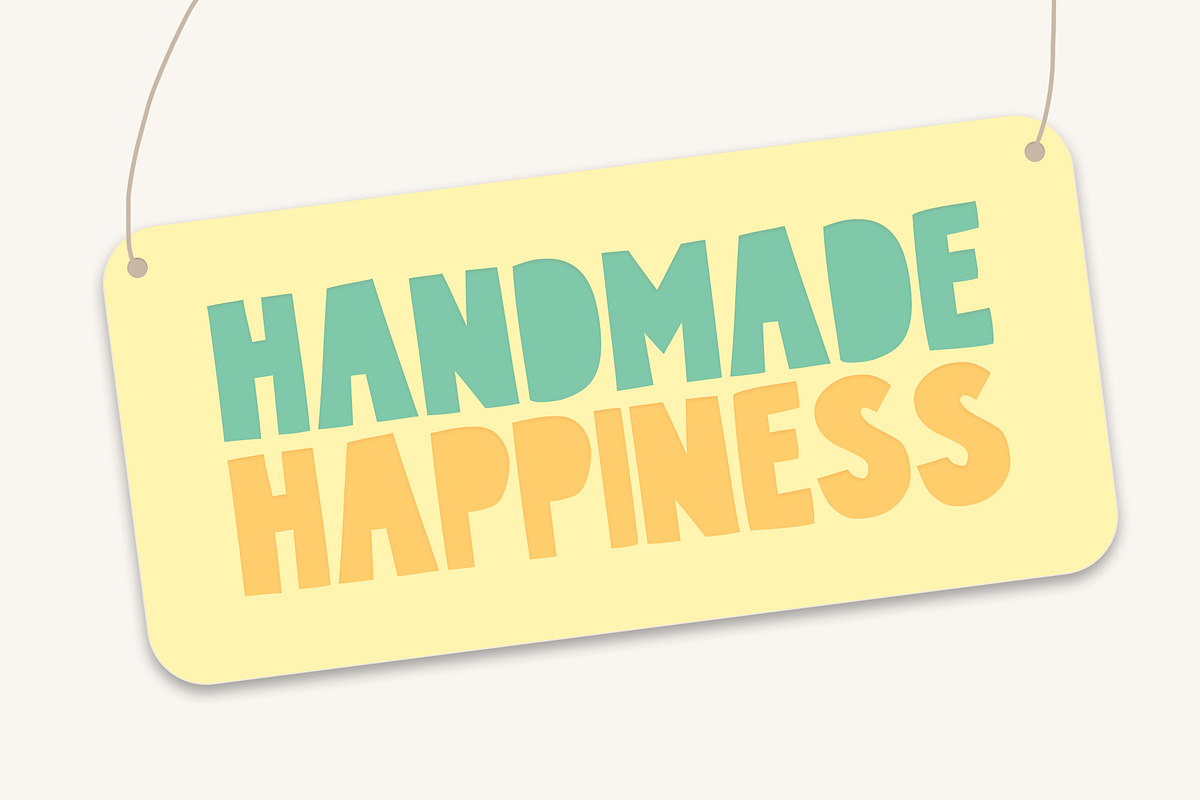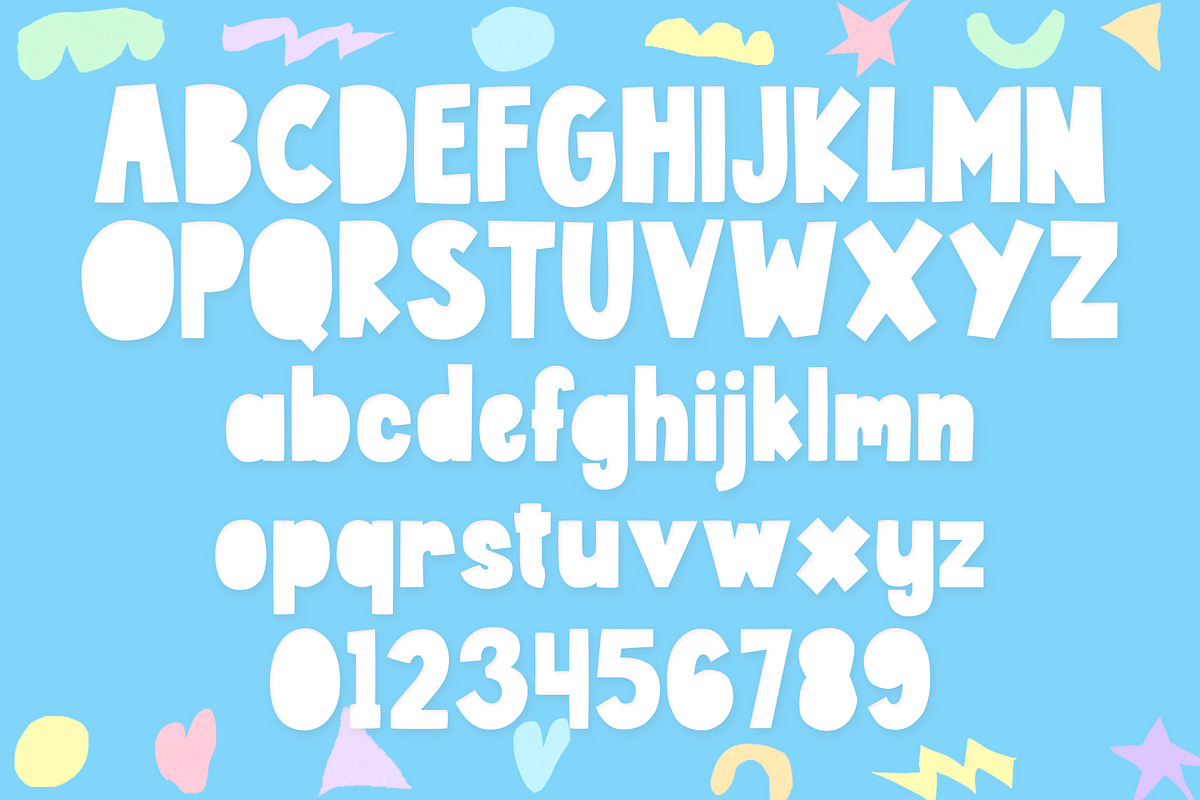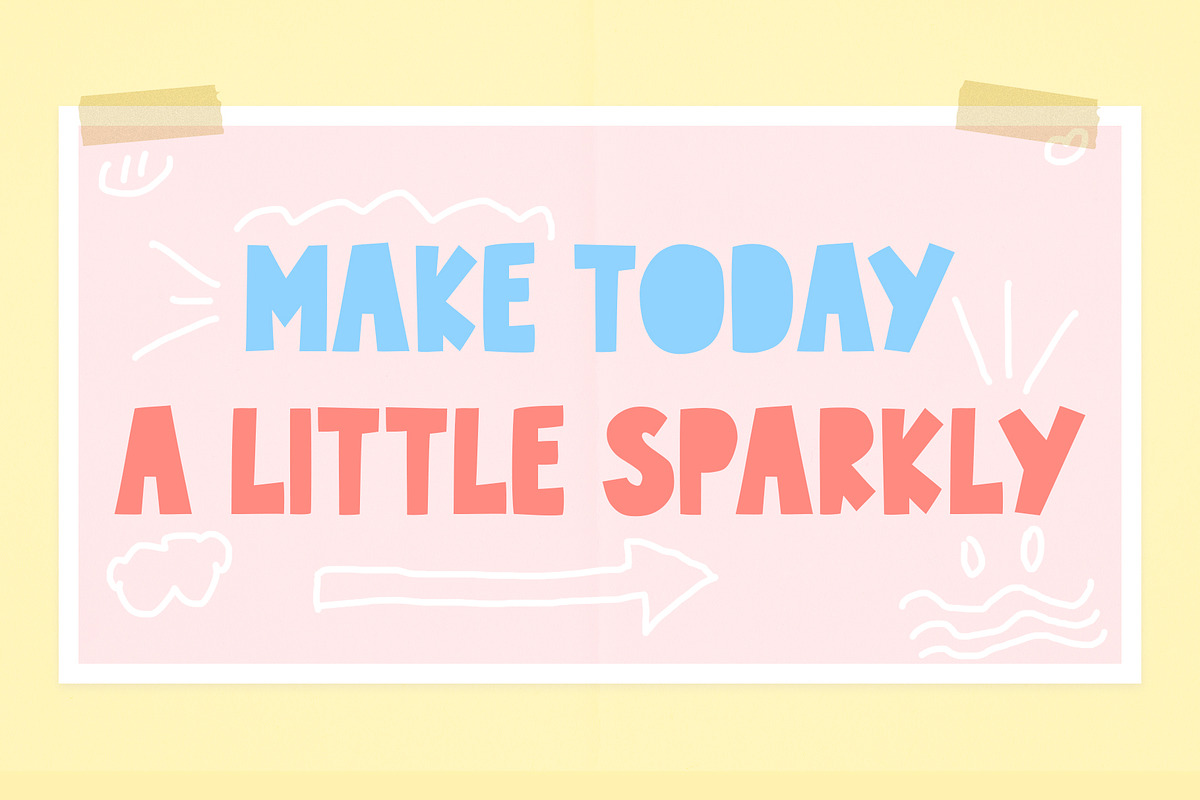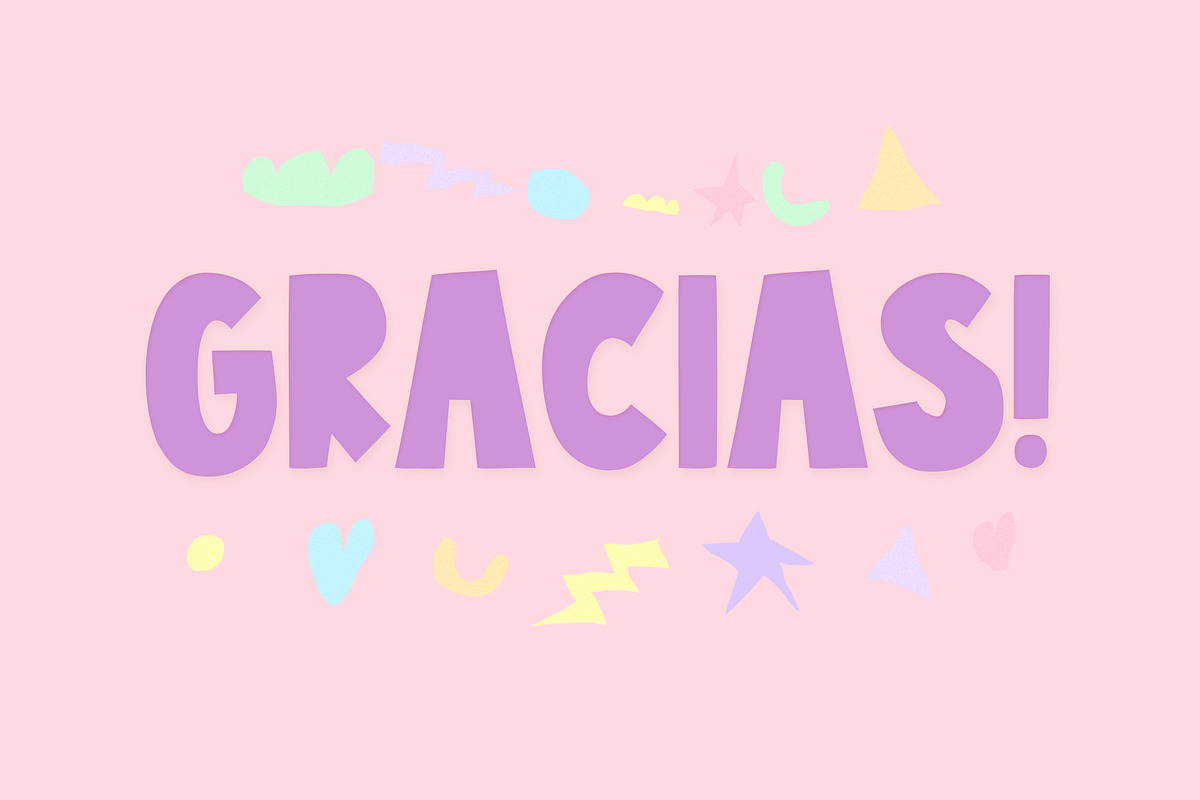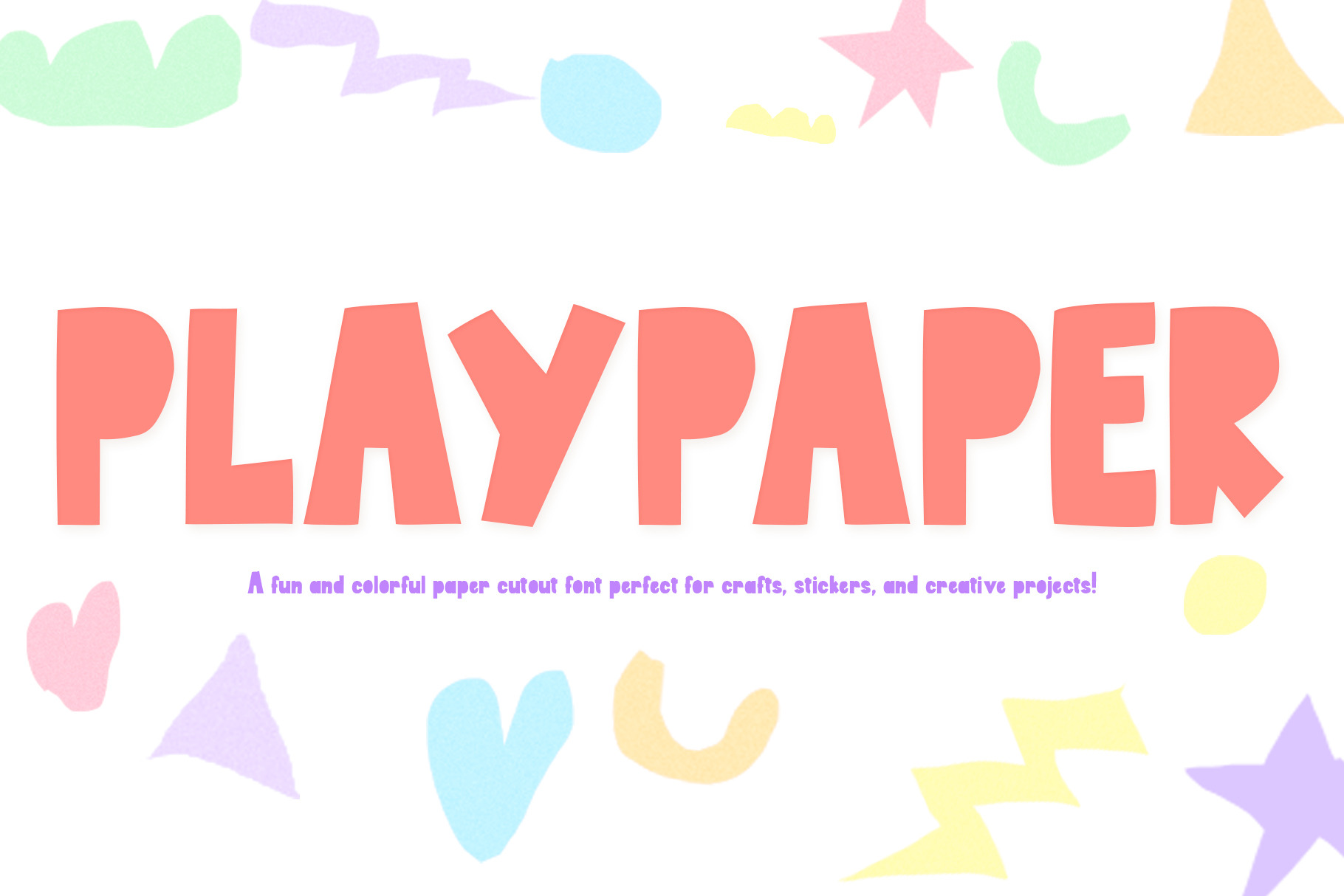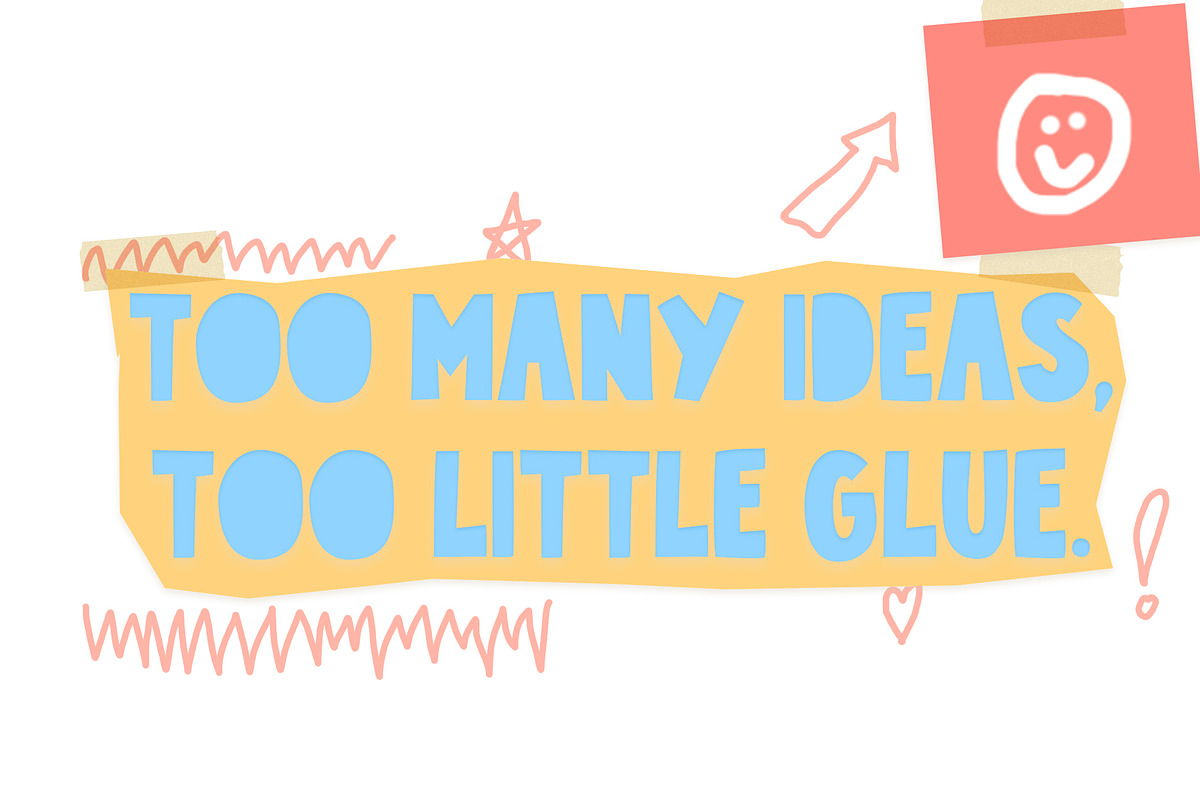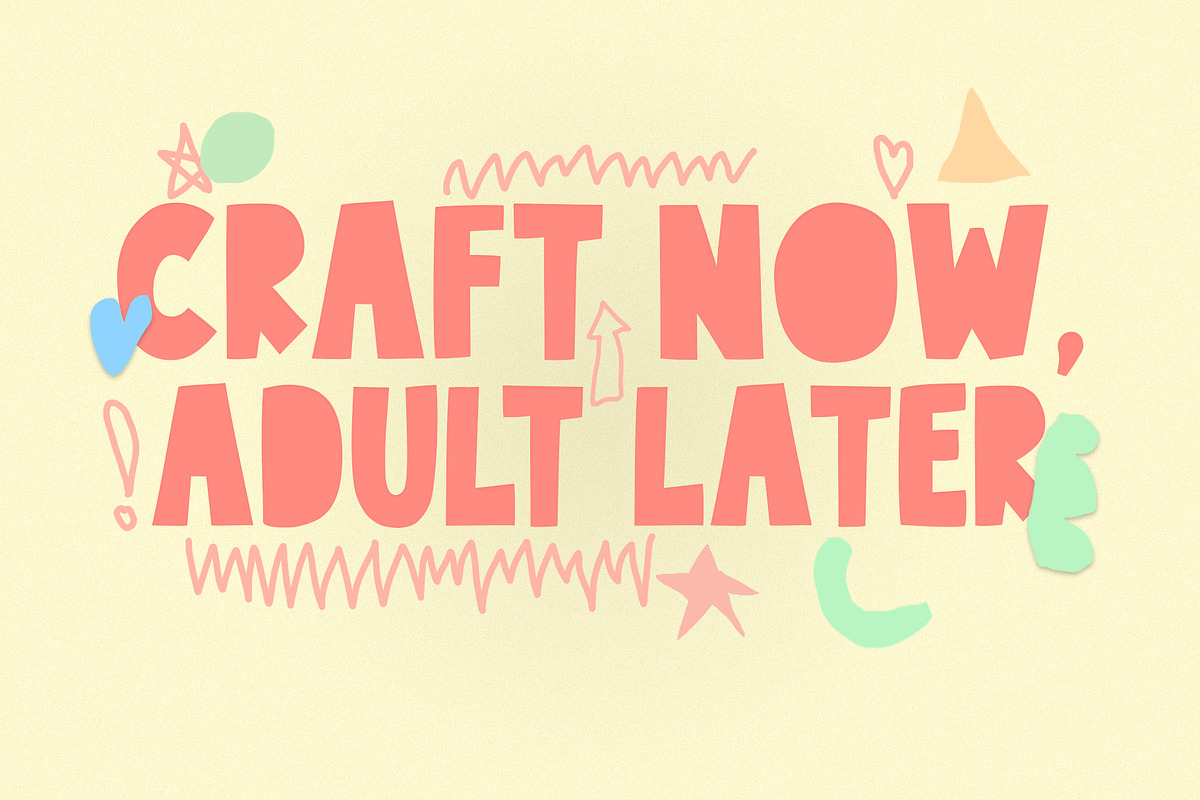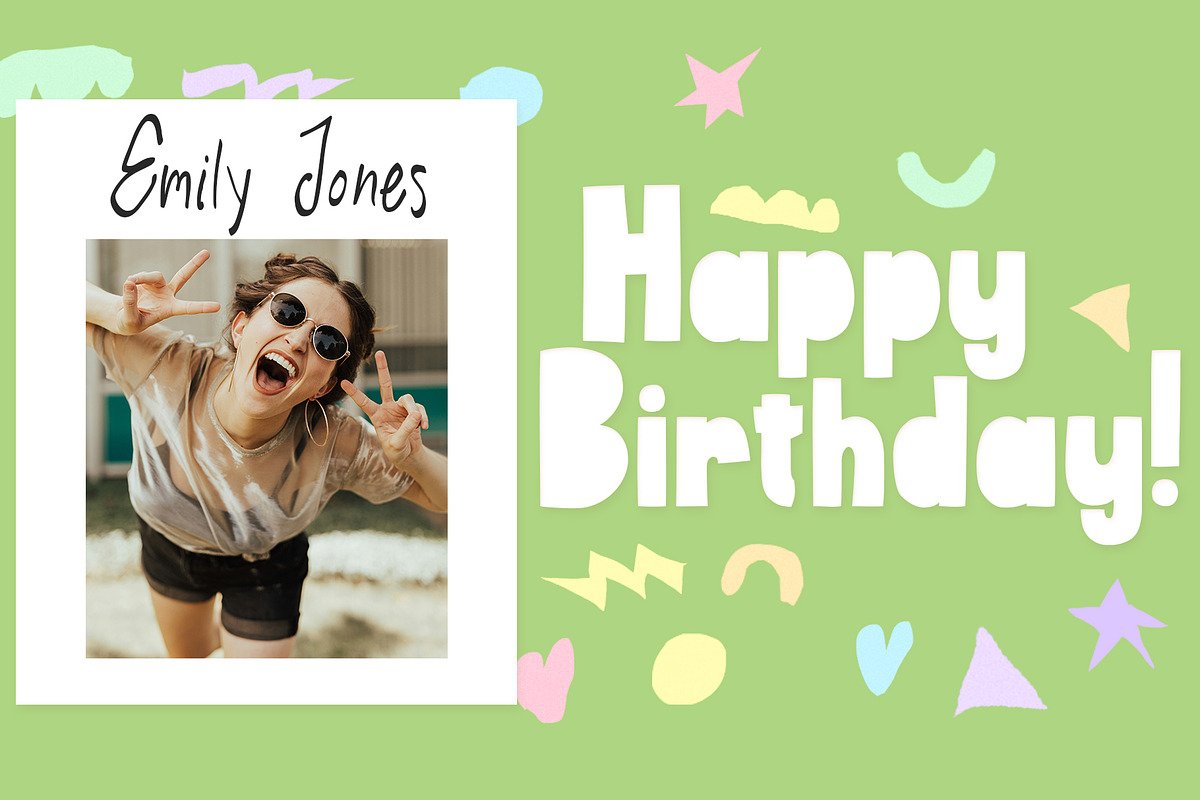
Playpaper! A Paper Cutout Font
Playpaper is a fun and cheerful paper cutout style font that brings handmade charm into your creative projects! Each letter looks like it’s cut and glued by hand, giving a warm, playful, and perfectly imperfect feel, just like your favorite crafts.
Perfect for stickers, greeting cards, kids' designs, scrapbooks, mugs, and posters, Playpaper adds a splash of joy and color to everything you make. Whether you’re designing a cheerful quote or a DIY-inspired product, this font will make it look lively and full of personality!